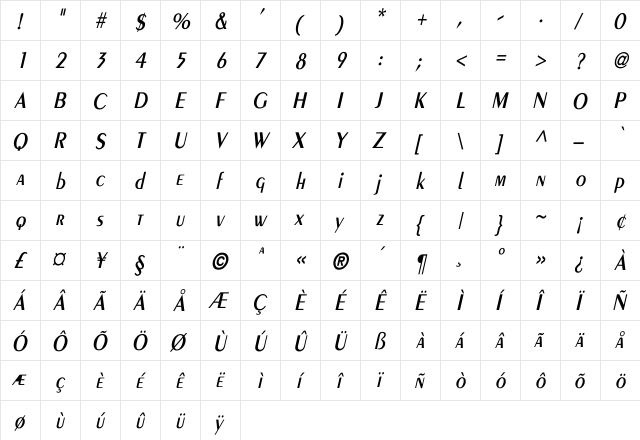
Peignot-Demi-Normal Th Italic Italic
Design Context for Peignot-Demi-Normal Th Italic Typeface
Peignot-Demi-Normal Th Italic is a composed and adaptable typeface that performs quietly and consistently across a wide range of design contexts. Its italic angle brings a sense of urgency and motion to the letterforms.
Pro Tip: Use Peignot-Demi-Normal Th Italic for emphasis, pull quotes, and subheadings where its slanted energy can add rhythm to the layout.